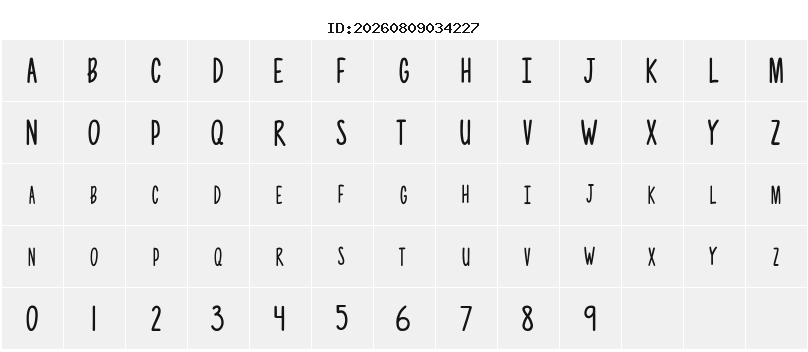
• Font Name: Photographs
• Designer: Brielle Lang
About Photographs.ttf
Photographs.ttf is a modern, elegant sans-serif font designed for ultimate readability and visual harmony. Perfect for branding, headlines, web design, and print materials.